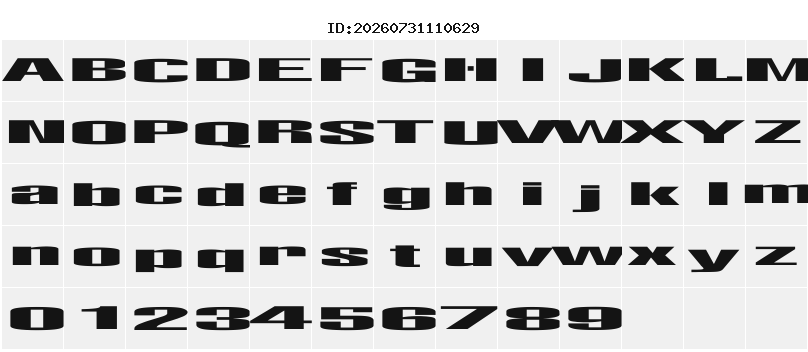
About LightsOut Ex.ttf
LightsOut Ex.ttf is a modern, elegant sans-serif font designed for ultimate readability and visual harmony. Perfect for branding, headlines, web design, and print materials.